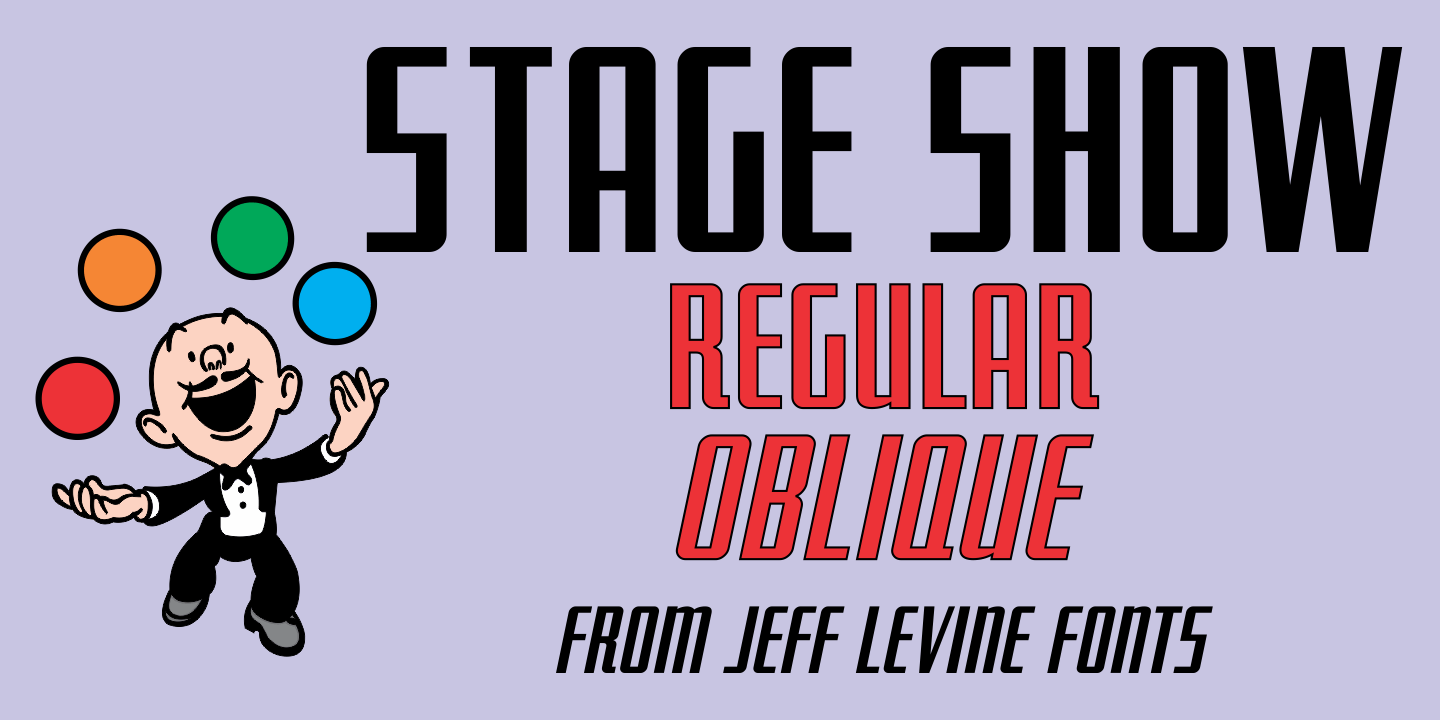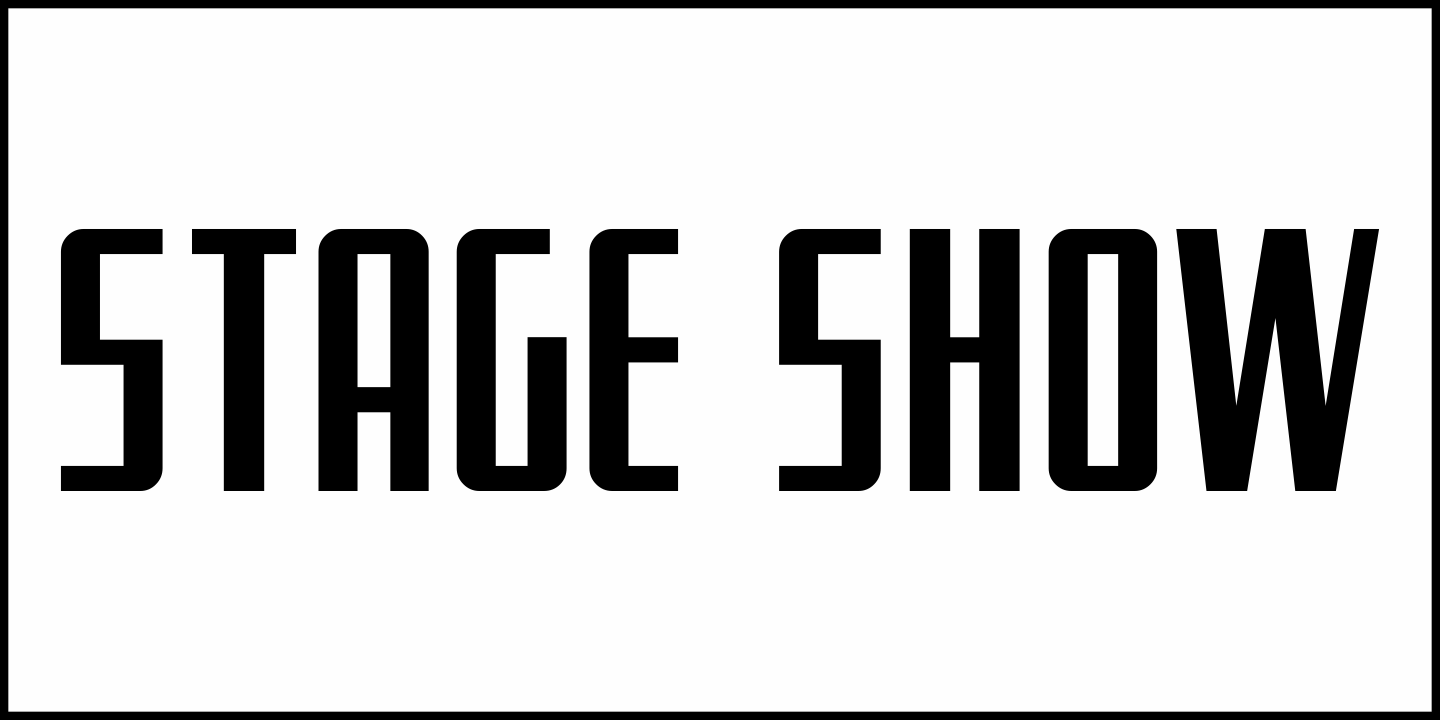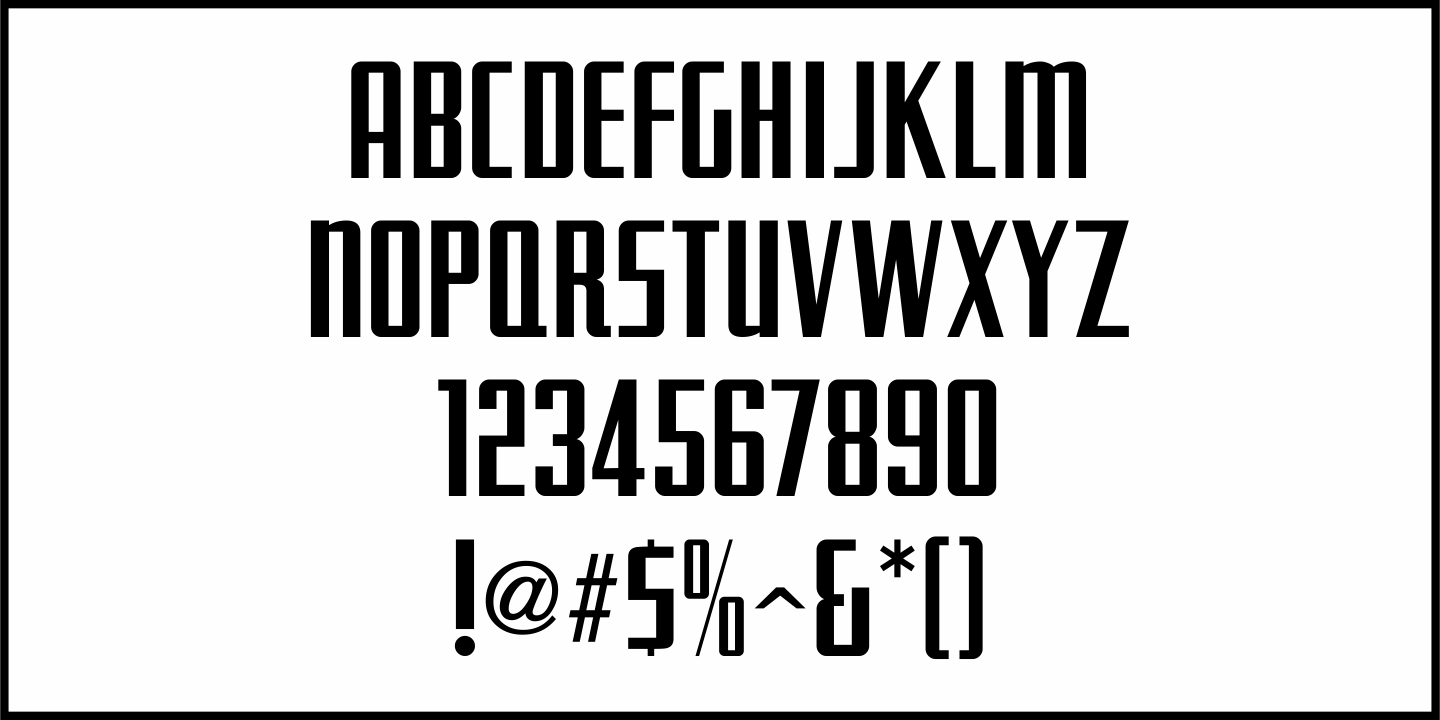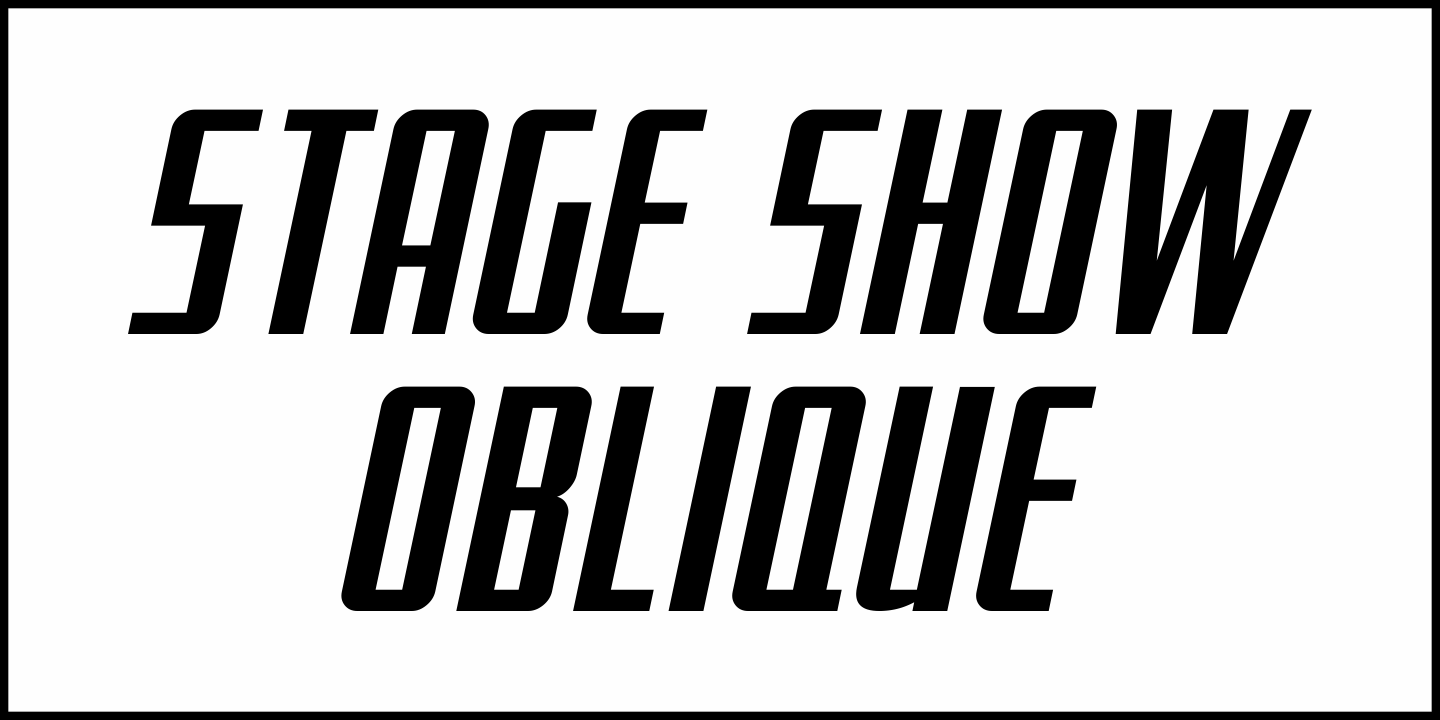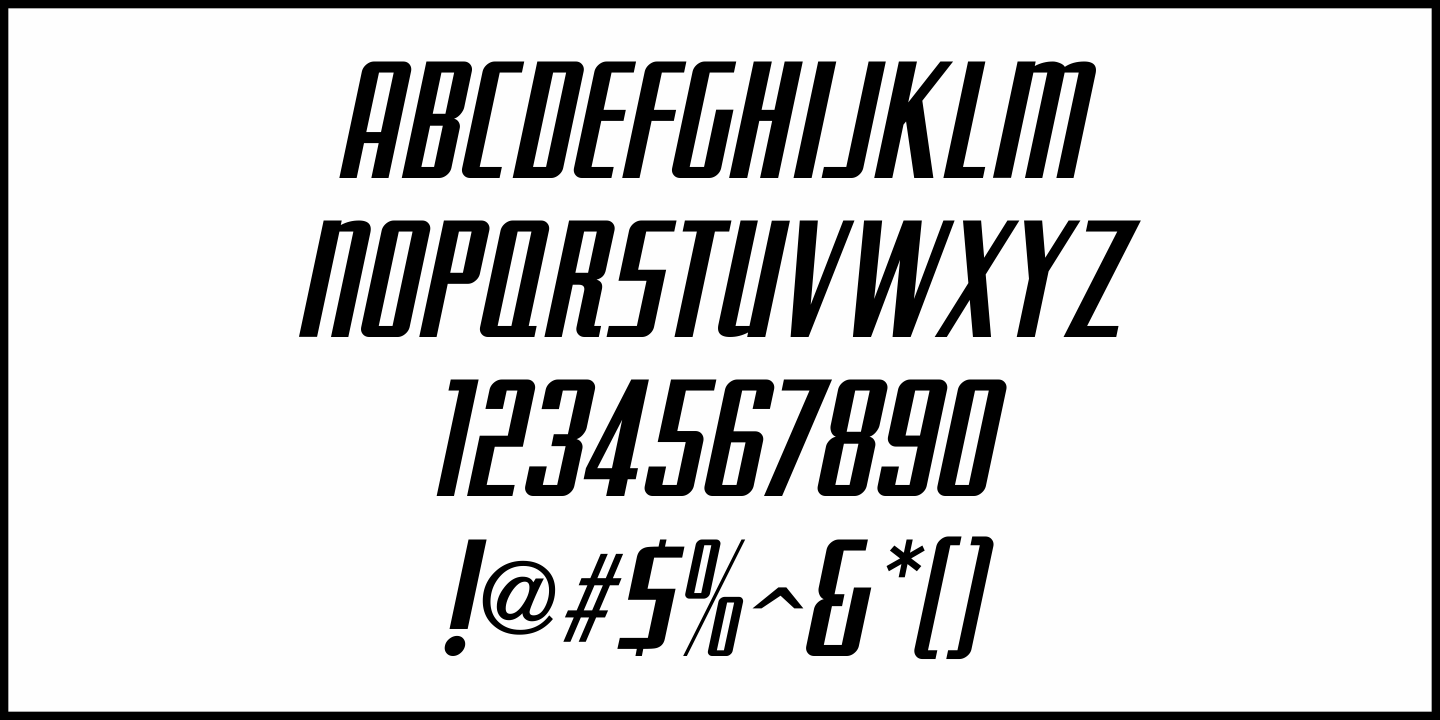
Stage Show
“9 Garcons...Un Cœur” (“9 Boys...One Heart”) is a 1948 French musical starring Edith Piaf.
The hand lettered credits for the film are done in a condensed Art Deco sans alphabet, now available digitally as Stage Show JNL in both regular and oblique versions.